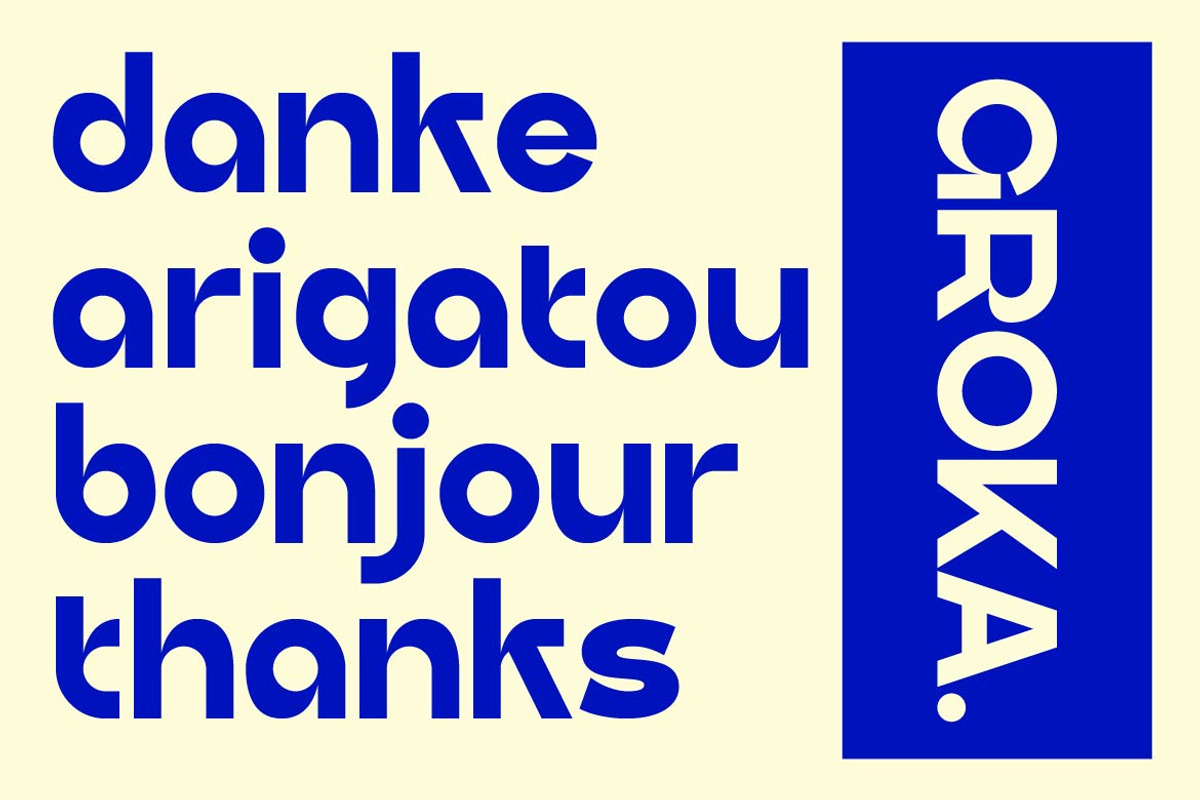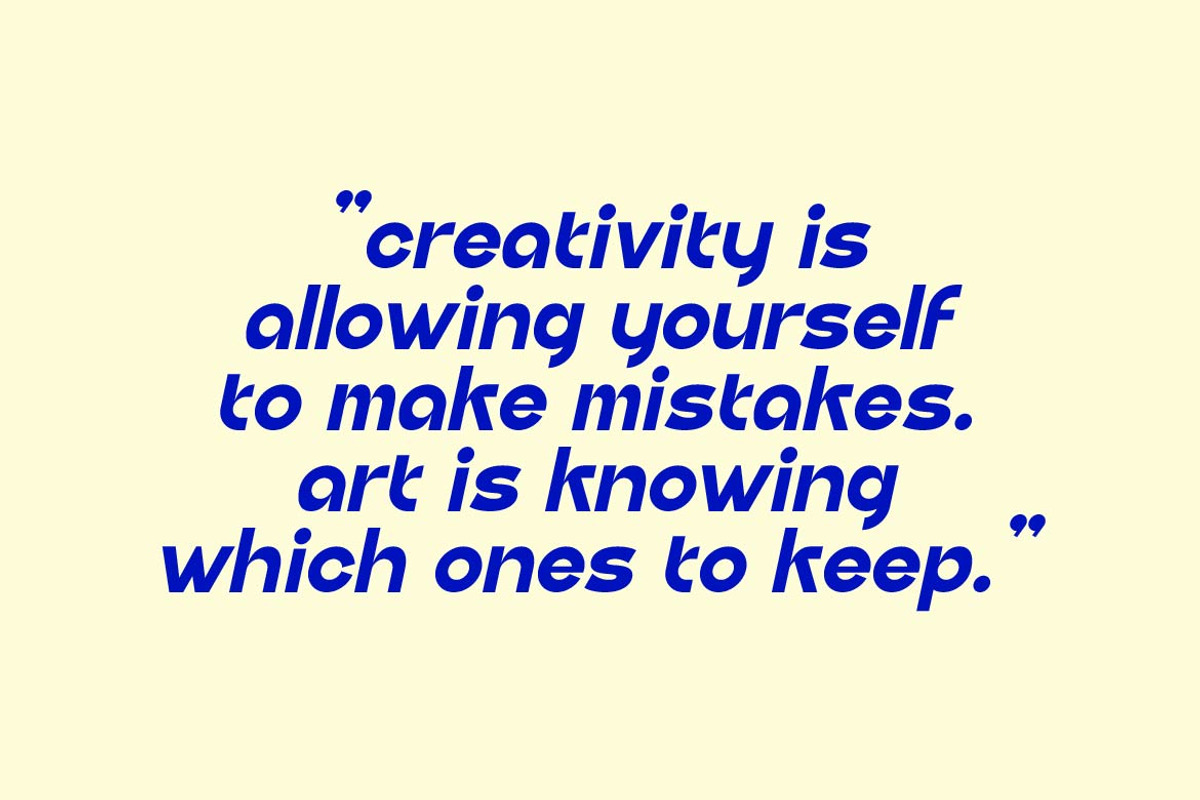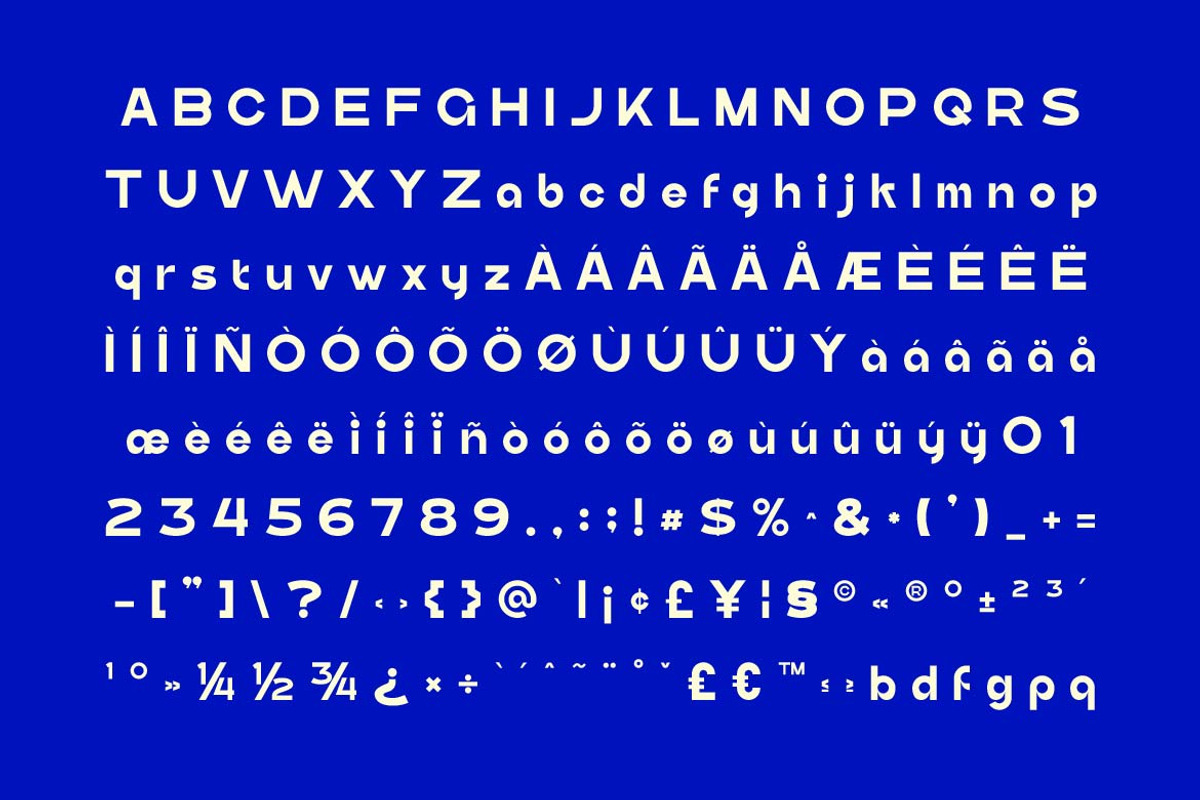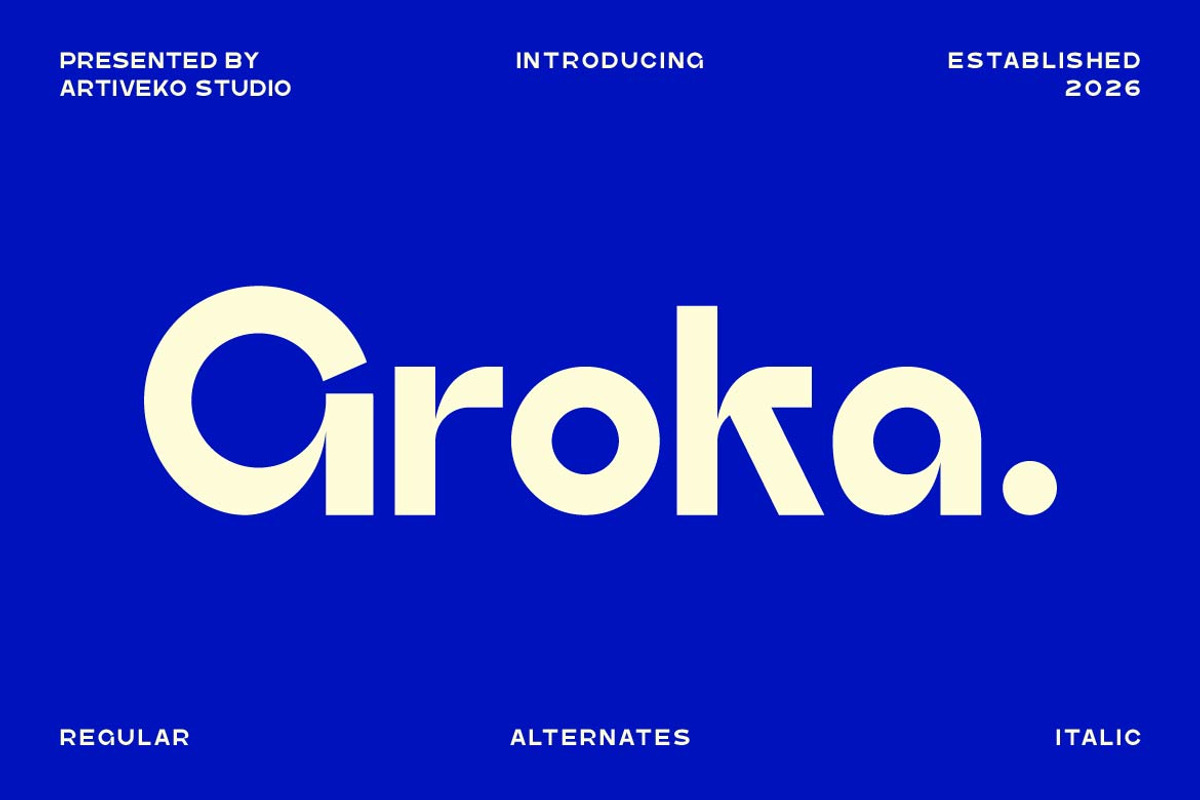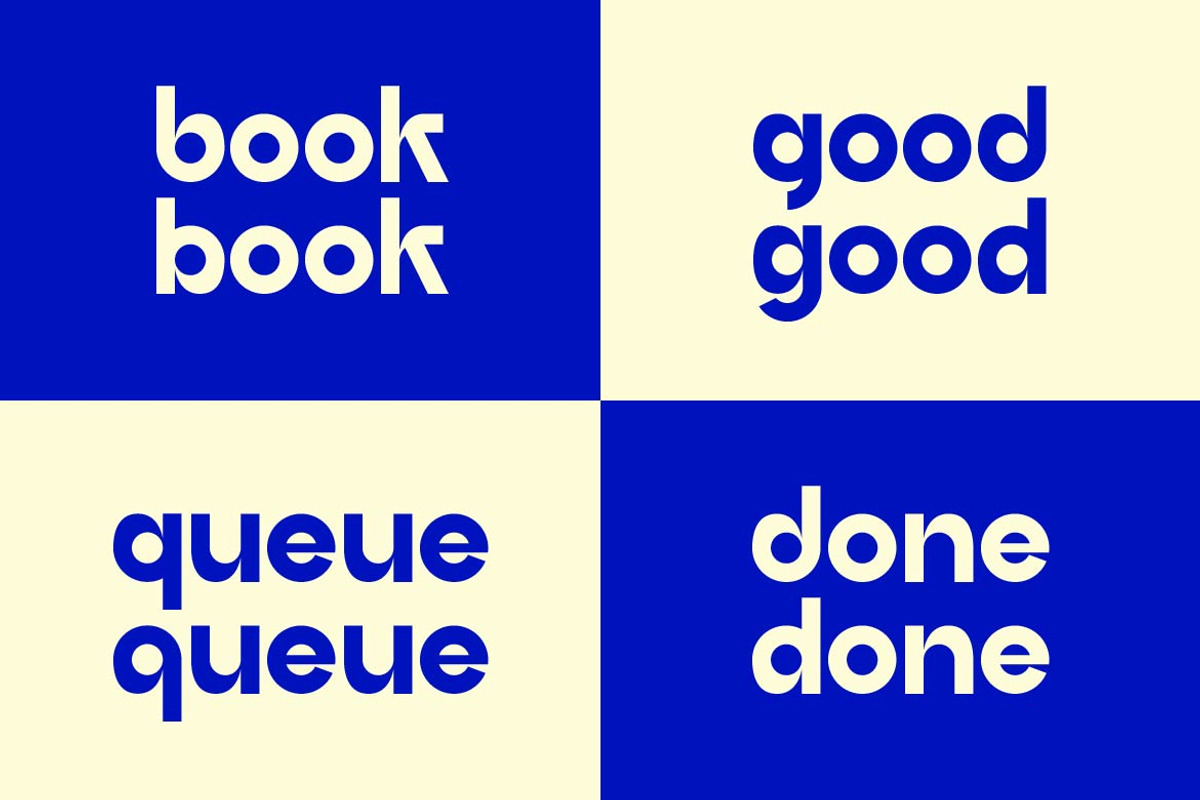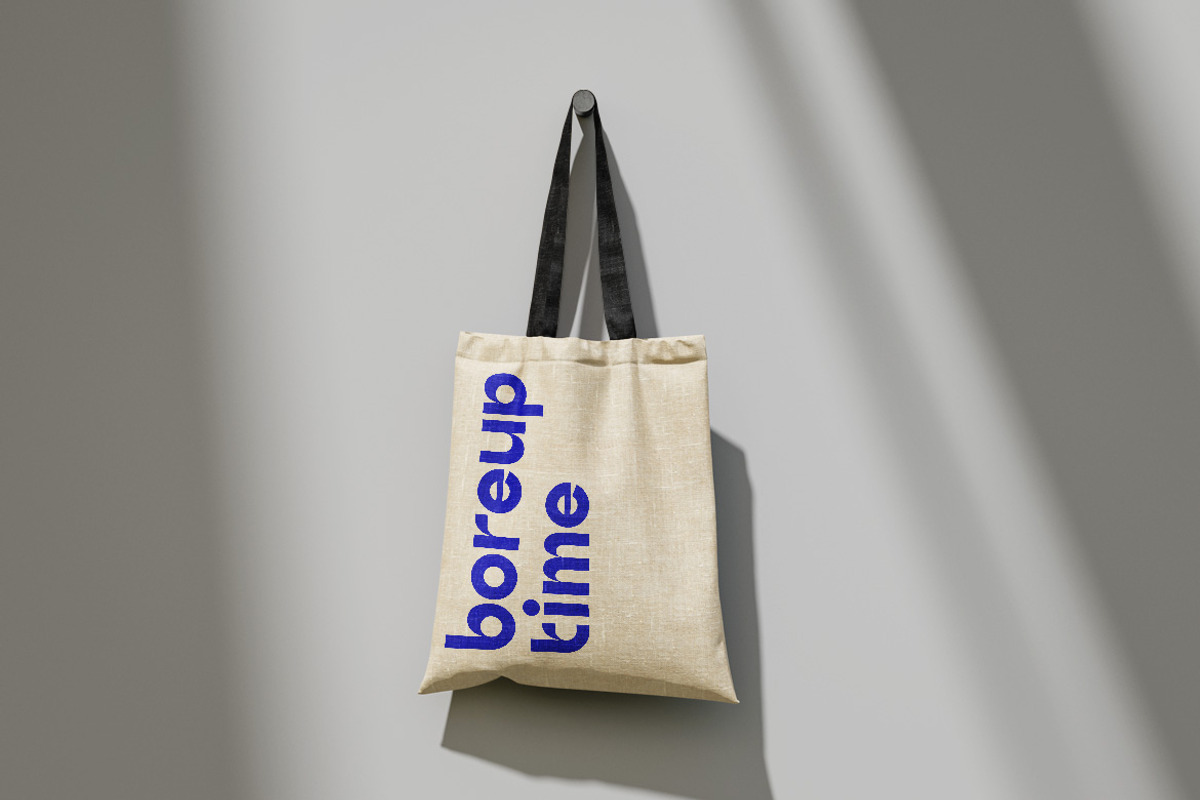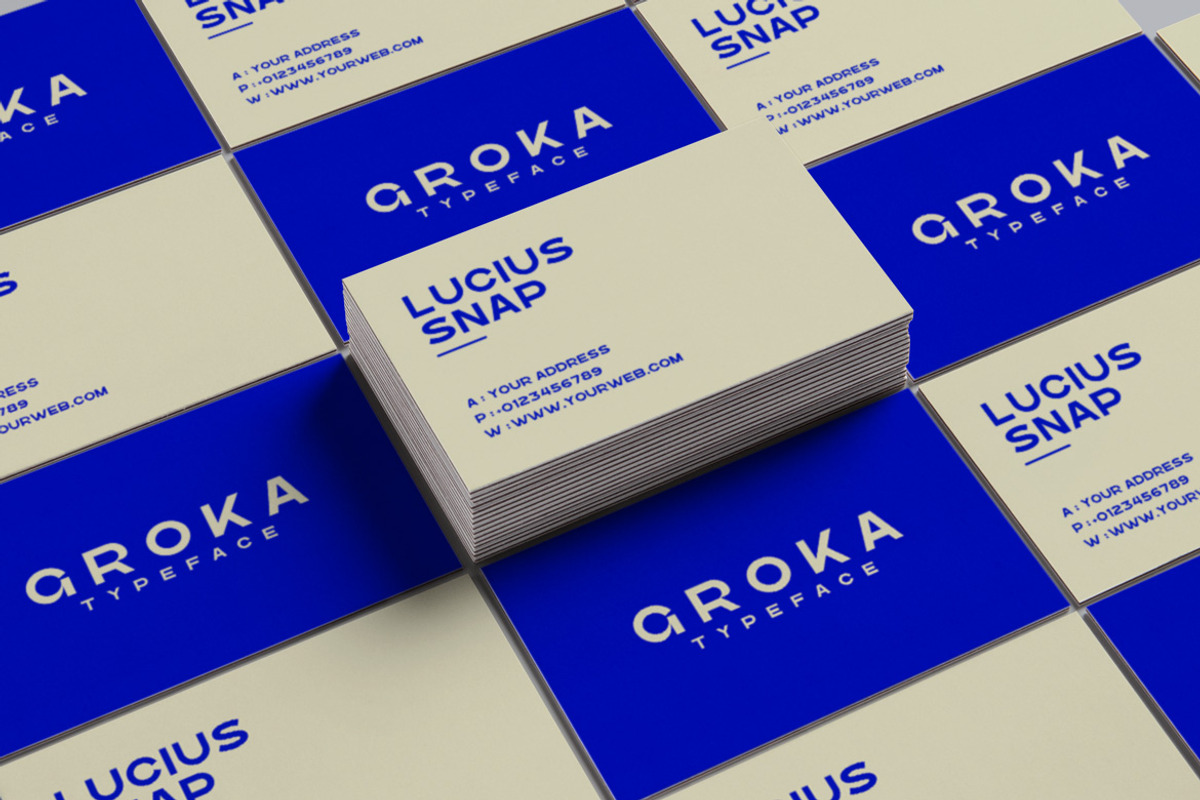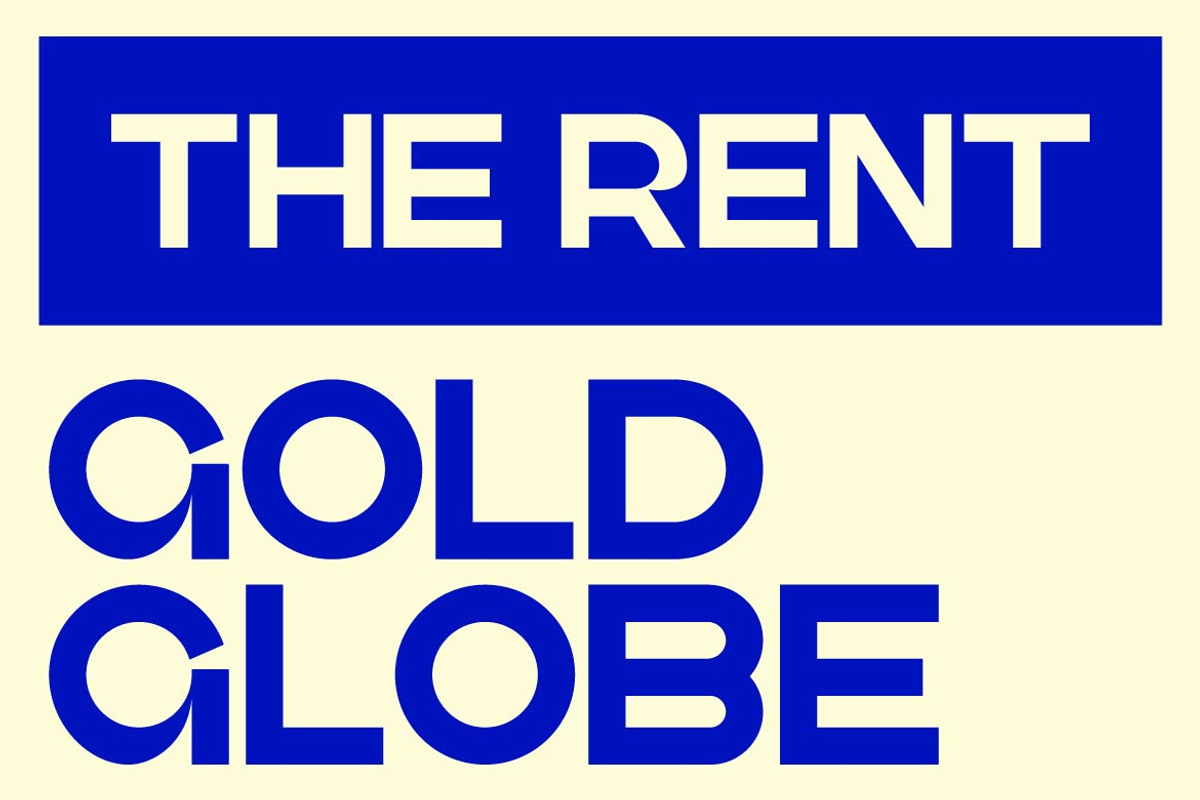
Groka – Versatile Creative Sans
Groka is a creative modern sans serif typeface designed for designers who value clarity, flexibility, and contemporary aesthetics. With clean construction, balanced proportions, and subtle character details, Groka delivers a professional yet expressive look across a wide range of creative applications.